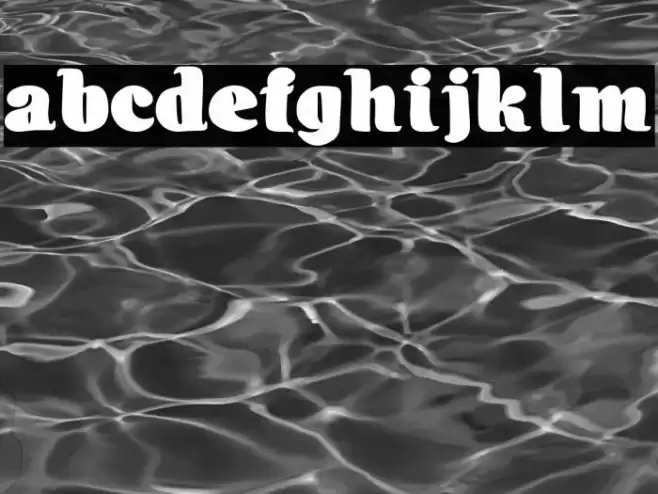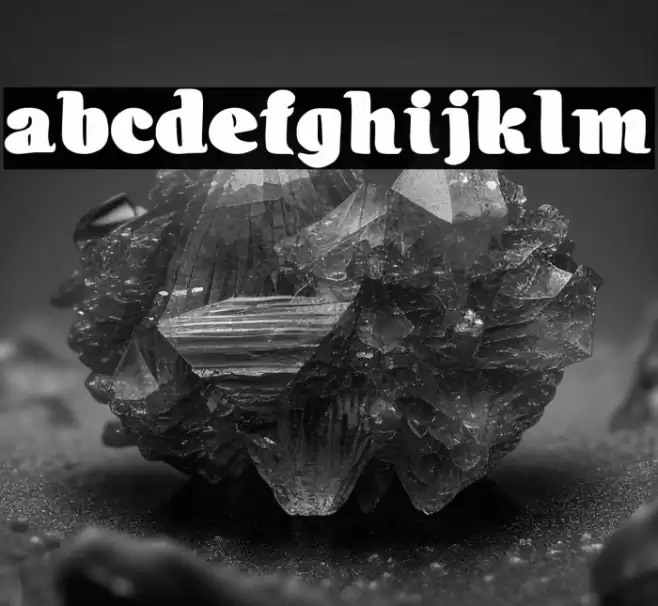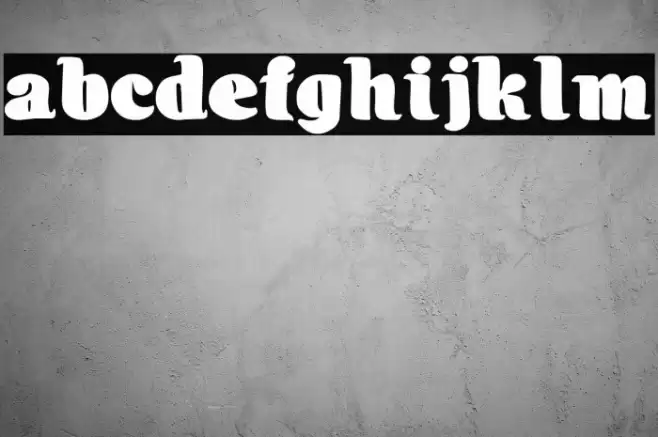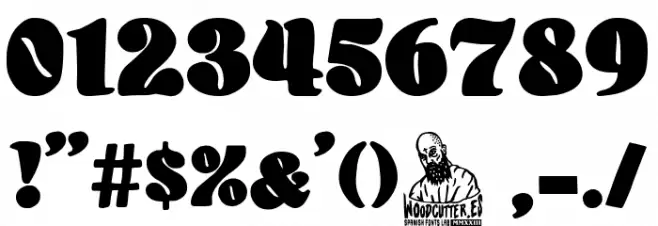
Lessons in Love Font
Lessons in Love Description
This font features a bold and playful style with thick, rounded strokes that give it a friendly and approachable appearance. The characters are slightly condensed, which adds to its unique charm. The uppercase and lowercase letters maintain a consistent style, with smooth curves and a uniform weight throughout. The numbers and special characters follow the same design principles, ensuring a cohesive look across all elements. This font's boldness and distinctiveness make it stand out, making it suitable for creative and eye-catching designs.
A bold, playful font with thick, rounded strokes and a friendly appearance from Uncategorized fonts.
- Font: Lessons in Love
- Proposed Projects: Ideal for children's books, playful branding, posters, and creative advertising.
- Overall Style: Playful